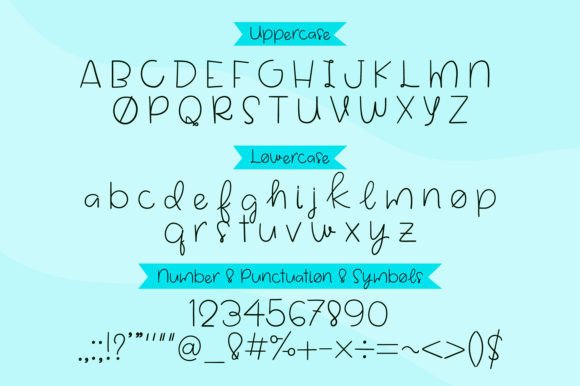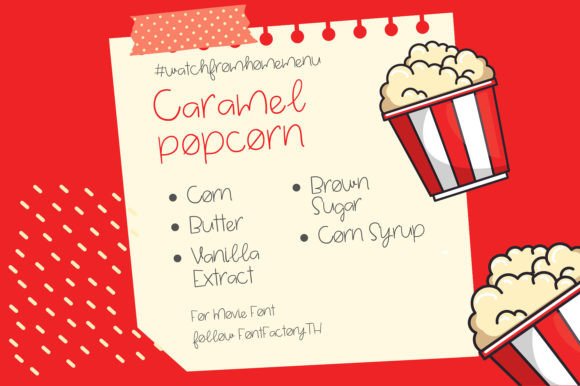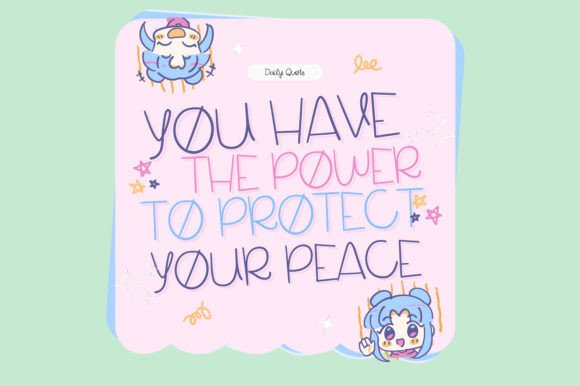
Introduction to Rollerpop Font
RollerPOP Font – Cute Handwritten, Clean Font, cute handwriting, Digital Note Fonts, Goodnotes Font, handwriting font, Handwritten Fonts, Neat Handwriting, Note Font, procreate font, sans serif font, Simple Font, Study Font, Font Bundle This is a Cute font for digital planning and note-taking, digital study notes, collage notes, and more.
RollerPOP Font – Cute Handwritten, Clean Font, cute handwriting, Digital Note Fonts, Goodnotes Font, handwriting font, Handwritten Fonts, Neat Handwriting, Note Font, procreate font, sans serif font,
Key Features of Rollerpop Font
Why Choose Rollerpop Font?
Rollerpop Font offers exceptional quality and versatility, making it a valuable addition to your design toolkit. Whether you’re creating for personal projects or commercial use, Rollerpop Font delivers professional results.